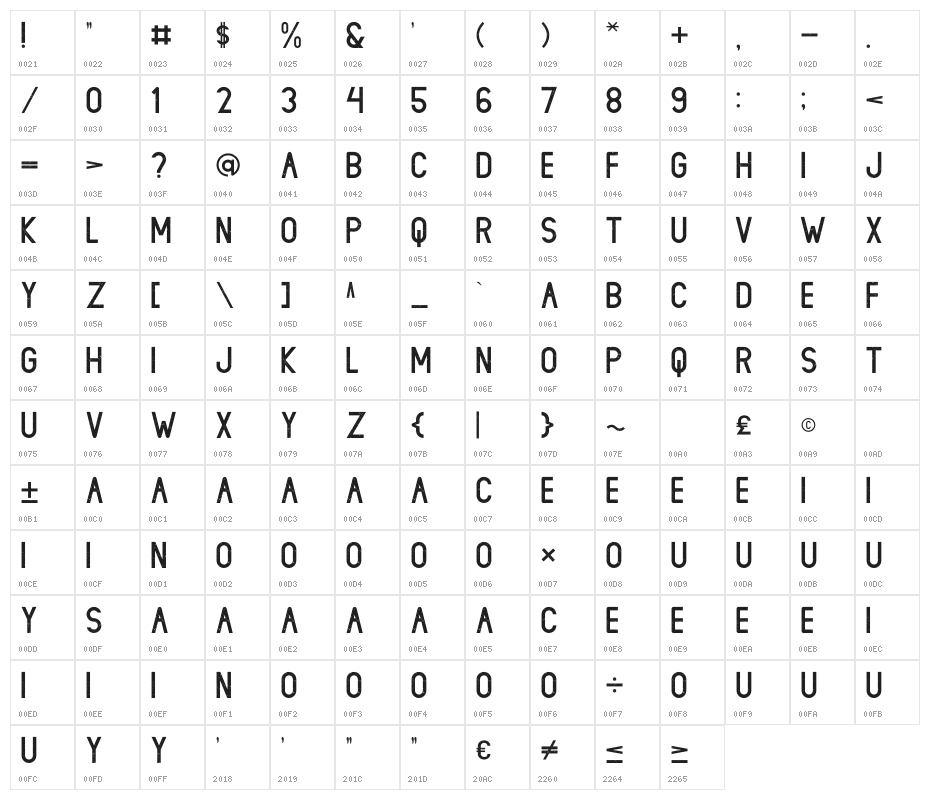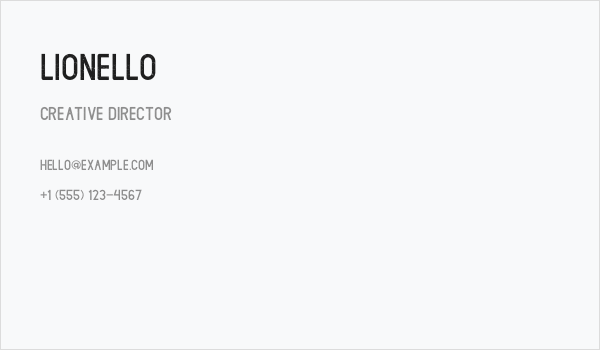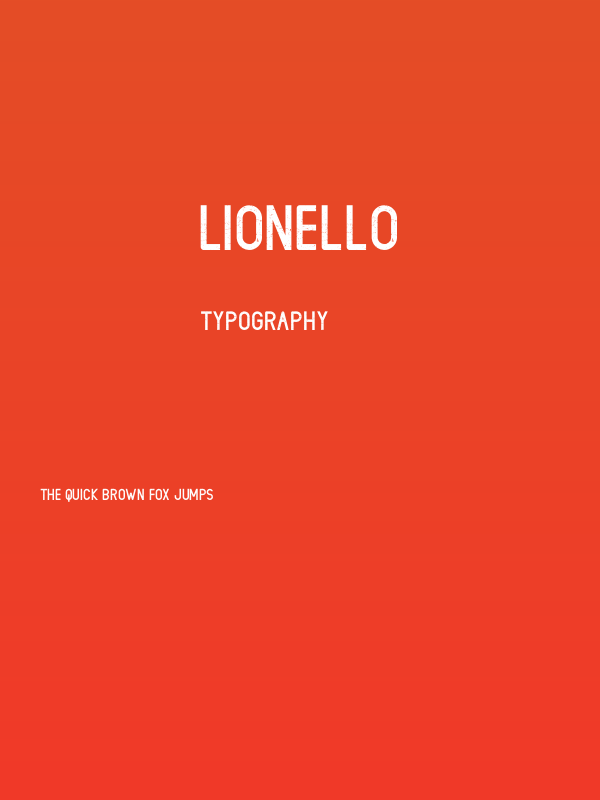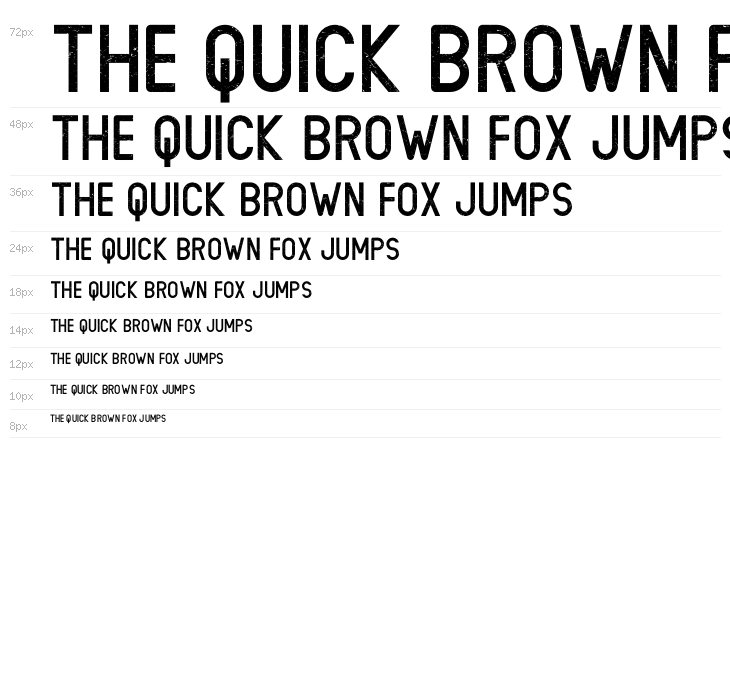
LIONELLO Font
LIONELLO Description
This font features a bold, industrial style with a distressed texture that gives it a vintage and rugged appearance. The uppercase letters are prominent and sturdy, with consistent stroke widths that maintain a strong presence. The numbers and special characters follow the same bold and distressed aesthetic, making them suitable for impactful designs. The font's rough texture adds character and depth, making it ideal for projects that require a touch of nostalgia or a handcrafted feel. Its clear and legible design ensures readability while maintaining a unique visual appeal.
| Proposed Projects | Ideal for posters, branding, packaging, and any design requiring a vintage or industrial look. |